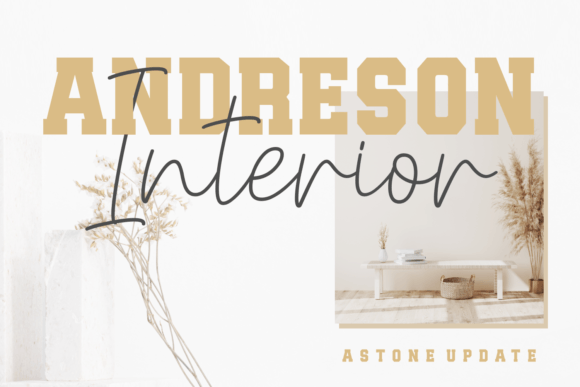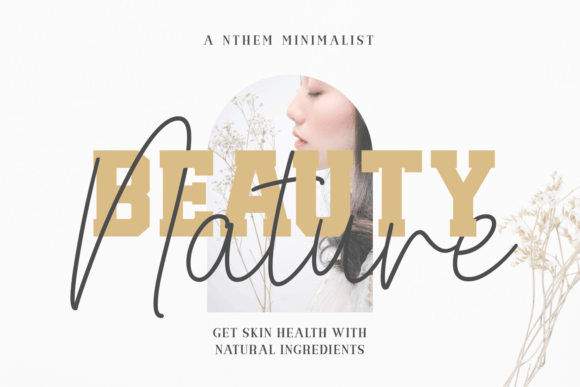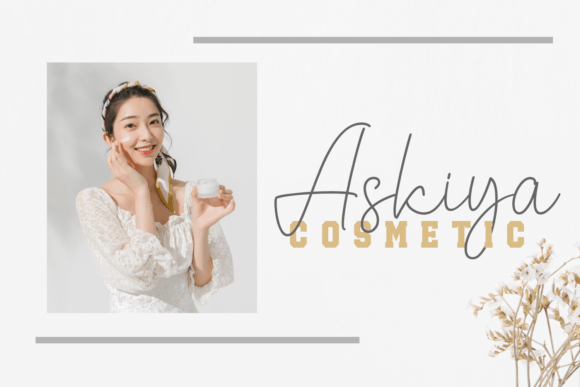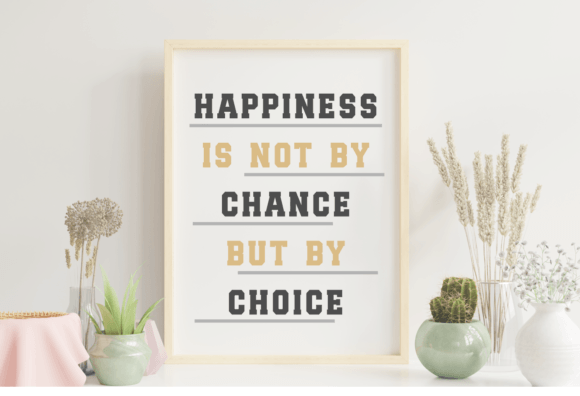
Astone Update Font: Elevate Your Designs with a Bold and Assertive Slab Serif Font
In the world of typography, a font can make or break a design. It’s the foundation upon which the entire visual identity is built. For designers and crafters, finding the perfect font can be a daunting task. However, if you’re looking for a bold and assertive slab serif font that can elevate any creation, look no further than Astone Update.
What is Astone Update Font?
Astone Update is a modern slab serif font that exudes confidence and sophistication. Its bold and assertive design makes it perfect for a wide range of applications, from branding and advertising to packaging and digital media. With its sturdy and dependable appearance, Astone Update is sure to make a statement in any design.
Key Features of Astone Update Font
- Bold and Assertive Design: Astone Update’s bold and assertive design makes it perfect for headlines, titles, and short texts.
- Slab Serif Style: The font’s slab serif style gives it a sturdy and dependable appearance, making it perfect for designs that require a strong and confident look.
- High Versatility: Astone Update can be used for a wide range of applications, from print to digital media, and can be easily paired with other fonts to create a unique visual identity.
- Excellent Legibility: The font’s clear and legible design ensures that your message gets across, even at small font sizes.
Benefits of Using Astone Update Font
So, why should you choose Astone Update for your next design project? Here are just a few benefits of using this incredible font:
- Elevate Your Designs: Astone Update has the potential to elevate any creation, making it perfect for designers who want to take their designs to the next level.
- Save Time: With Astone Update, you can create stunning designs in no time. Its bold and assertive design makes it easy to create eye-catching headlines and titles.
- Stand Out from the Crowd: Astone Update’s unique design ensures that your designs stand out from the crowd, making it perfect for brands that want to make a statement.
How to Use Astone Update Font
Using Astone Update is easy. Here are a few tips to get you started:
- Pair it with Other Fonts: Astone Update can be easily paired with other fonts to create a unique visual identity. Try pairing it with a sans-serif font for a bold and modern look.
- Use it for Headlines and Titles: Astone Update’s bold and assertive design makes it perfect for headlines and titles. Use it to create eye-catching text that grabs attention.
- Experiment with Colors and Textures: Astone Update looks great in a variety of colors and textures. Experiment with different colors and textures to find the perfect look for your design.
In conclusion, Astone Update is a bold and assertive slab serif font that can elevate any design. Its high versatility, excellent legibility, and stunning design make it perfect for a wide range of applications. Whether you’re a designer or crafter, Astone Update is sure to become an incredible asset to your fonts’ library.